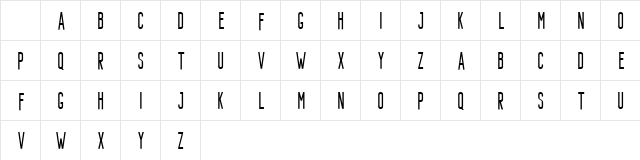
Bondie is a composed and adaptable typeface that performs quietly and consistently across a wide range of design contexts.
Pro Tip: Use Bondie in both headline and body roles to test its range before committing to a single application.